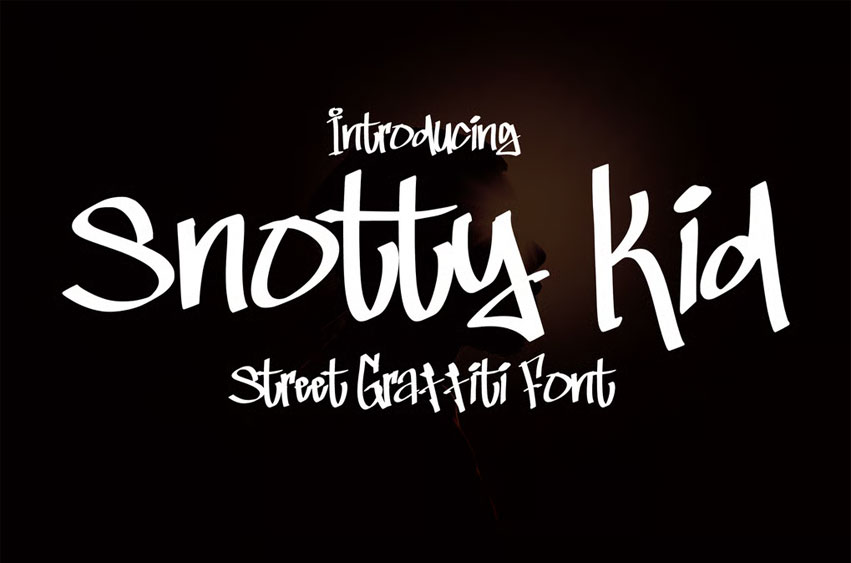
Snotty Kid Font
Snotty Kid Font Kid Graffiti Font. Dive into the world of contemporary design with Snotty Kid Graffiti Font, a stylish Graffiti font that exudes a sleek and sophisticated vibe.
With its seamless strokes and modern aesthetics, Snotty Kid Graffiti Font is the perfect choice for design projects that require a touch of minimalism and elegance.